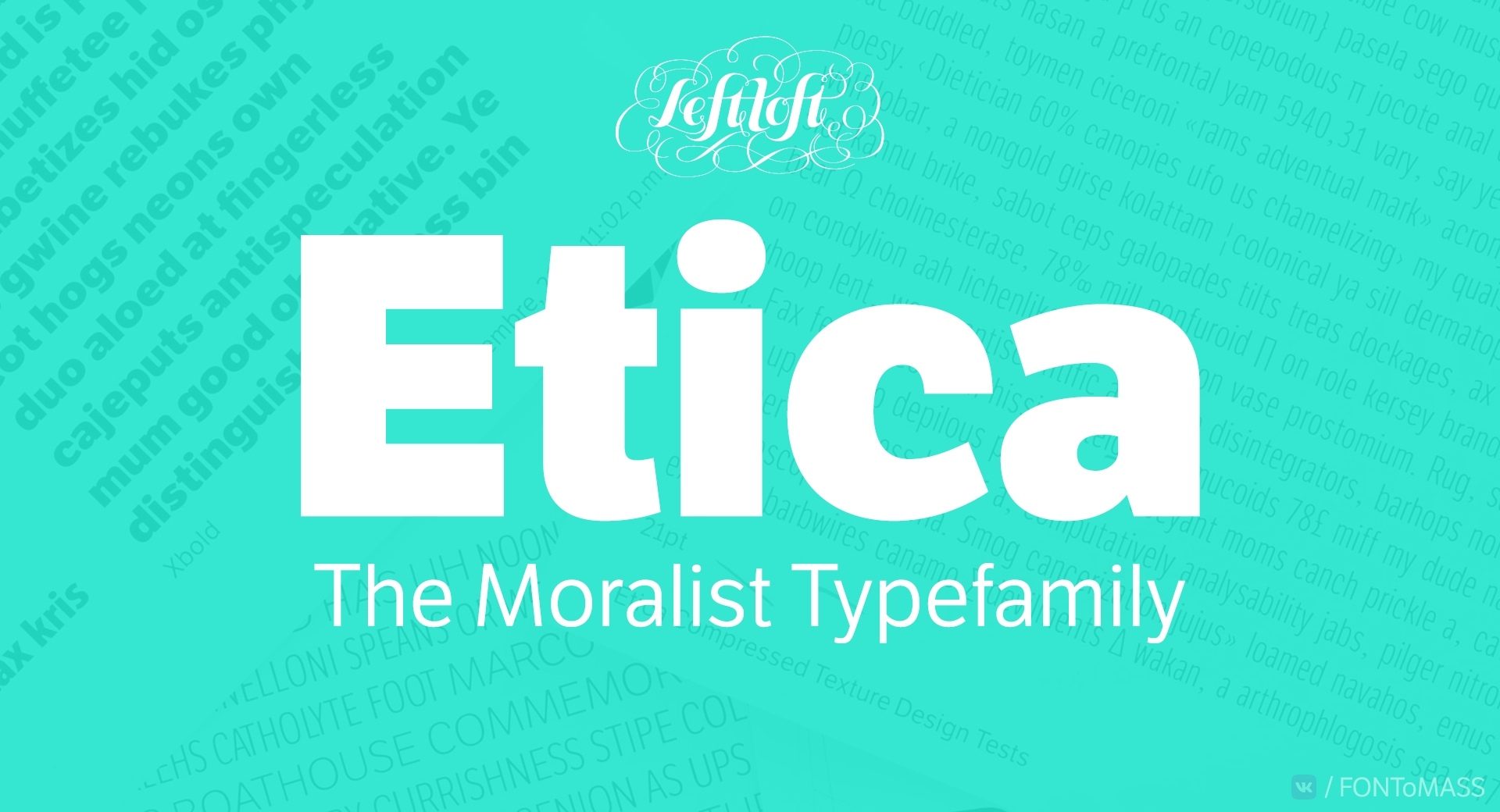
LFT Etica Font
LFT Etica Font is perfect for corporate branding, modern web design, clean user interfaces, professional presentations, contemporary magazines, minimalist logos, digital platforms, business communications, sleek marketing materials, and sophisticated brand identities.
What makes LFT Etica Font so exciting is its perfect harmony of humanist warmth and geometric precision that creates exceptional versatility across all design applications. This remarkable sans-serif typeface combines contemporary aesthetics with timeless functionality, delivering typography that communicates with clarity and sophisticated professionalism.
The LFT Etica Font family includes thin, light, regular, medium, bold, and black weights, complete with matching italics and condensed variations, providing designers with a comprehensive typographic system that covers every design need from delicate text to powerful headlines.
The beautifully proportioned letterforms of LFT Etica Font feature subtle humanist characteristics that add warmth and personality while maintaining the clean precision essential for modern communication. Each character has been optimized for superior legibility across all sizes and media, ensuring consistent performance whether used in large display applications or extended reading materials. The font's balanced proportions and generous spacing contribute to exceptional readability and professional appearance.
Leading brands and design agencies worldwide trust LFT Etica Font for projects requiring uncompromising quality and versatile performance. The comprehensive character set includes Latin extended glyphs, OpenType features, mathematical symbols, and currency signs that provide complete support for international projects and complex typographic compositions.
The universal appeal of LFT Etica Font ensures outstanding results across all platforms and applications. Whether developing corporate identity systems, creating responsive web designs, or designing sophisticated print materials, this remarkable typeface delivers the reliability and visual impact that modern brands require to communicate effectively with global audiences.